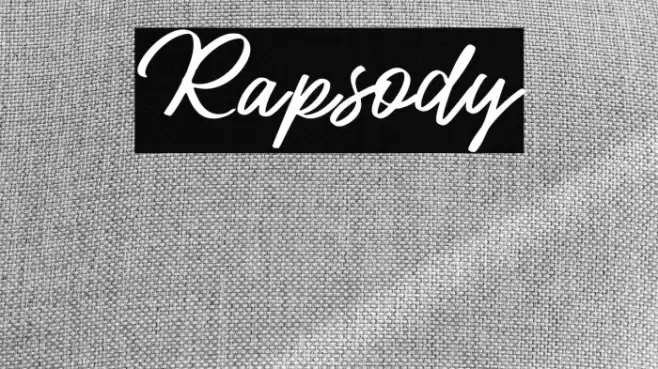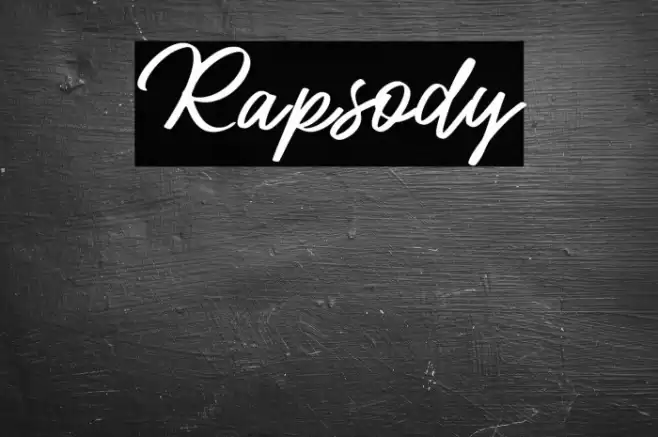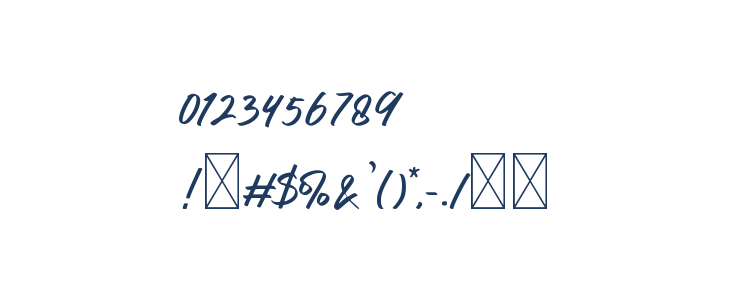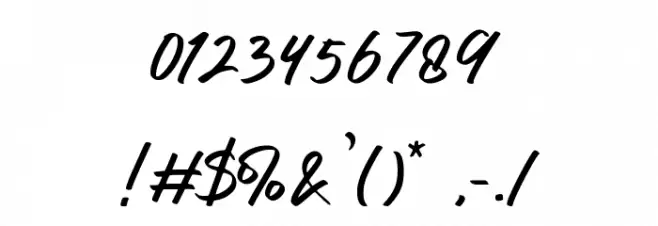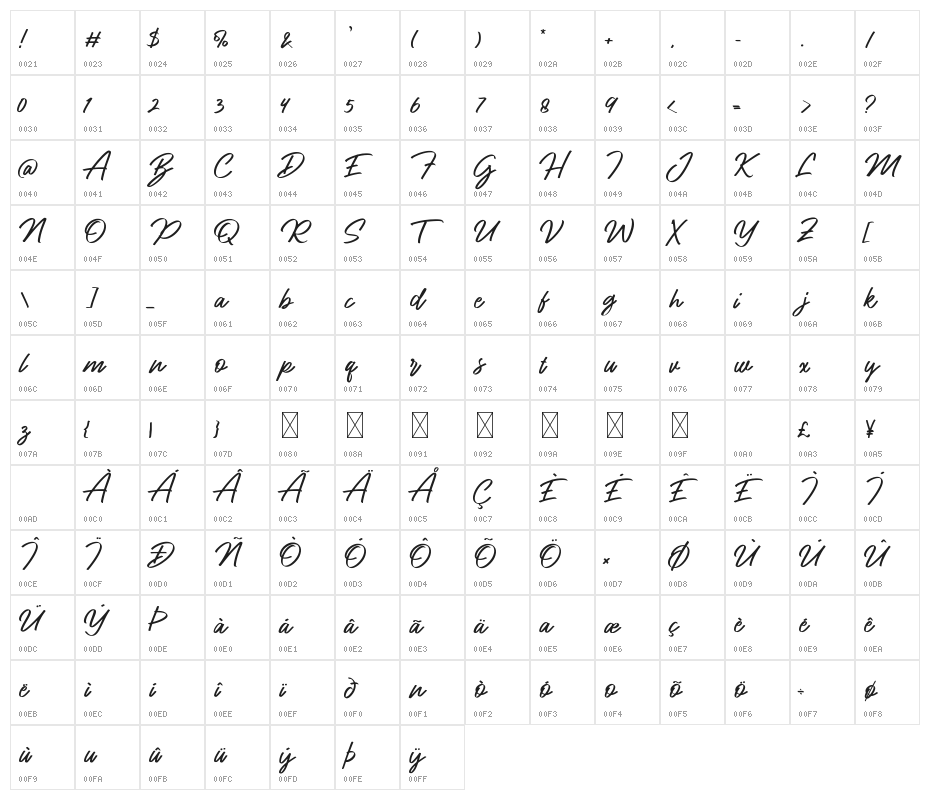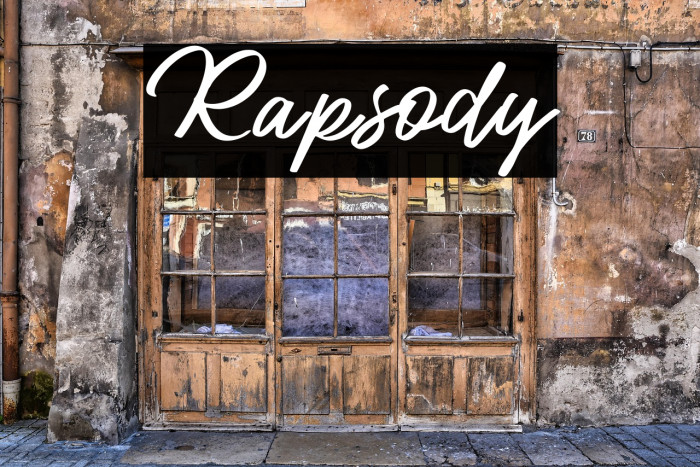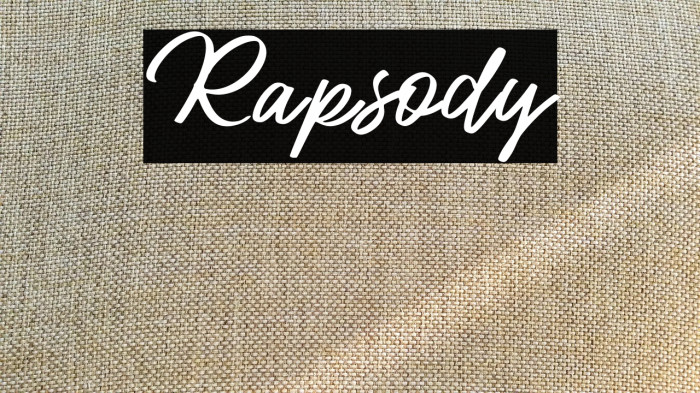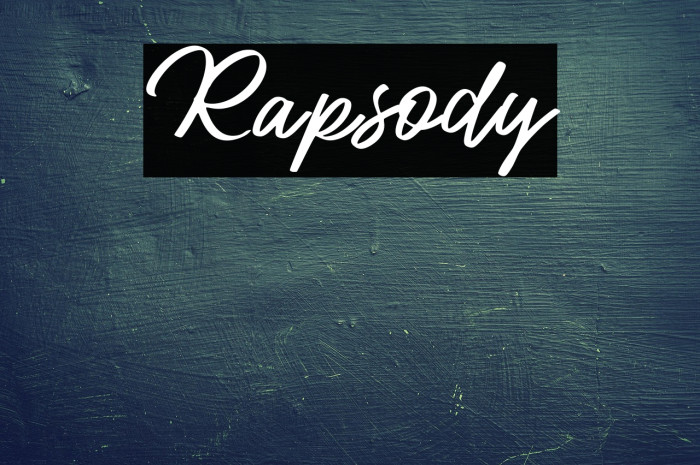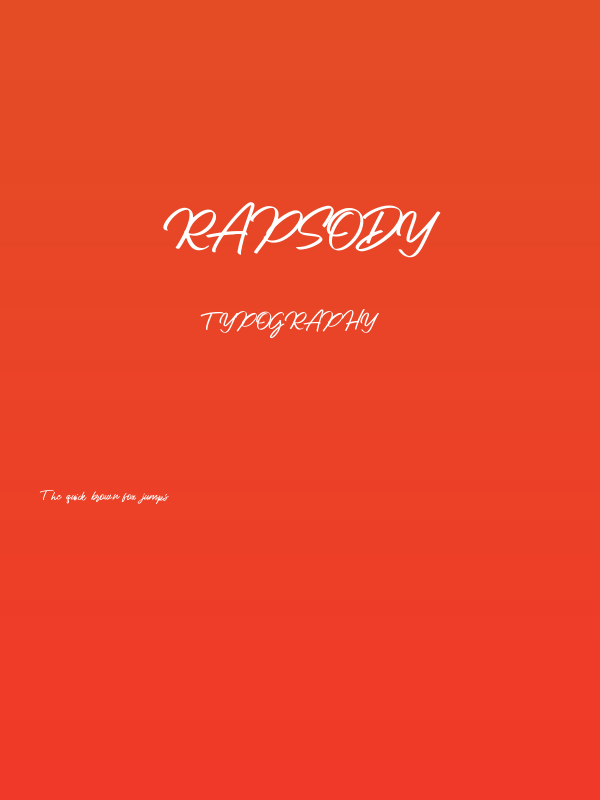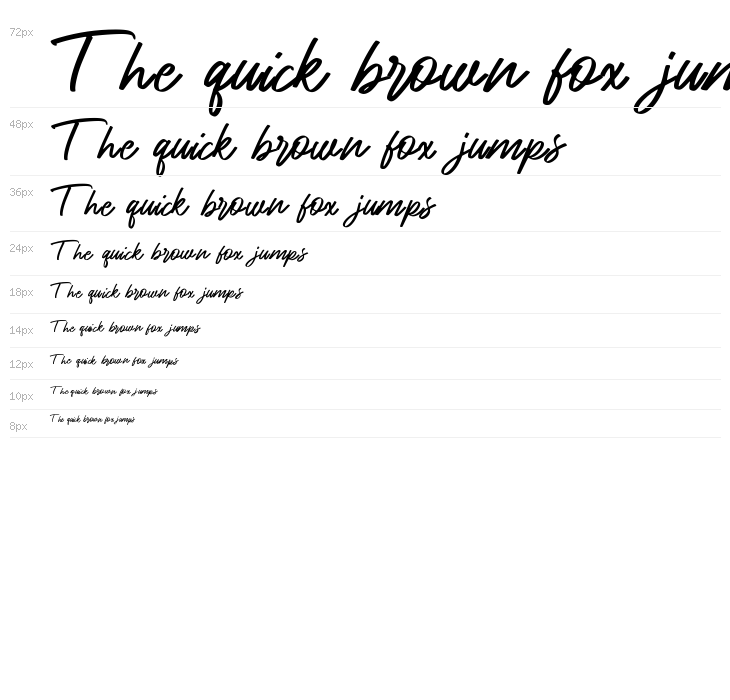
Rapsody Font
Rapsody Description
This font features a flowing, cursive style with a modern twist. The letters are connected, creating a seamless and elegant look. The uppercase characters are bold and expressive, while the lowercase letters maintain a consistent flow, enhancing readability. The numbers and special characters are designed to match the overall aesthetic, with smooth curves and a balanced structure. This font exudes a sense of sophistication and creativity, making it suitable for various design projects.
A modern, cursive font with flowing, connected letters from Regular fonts.
- Proposed Projects: Ideal for wedding invitations, branding, logo design, and elegant packaging.
- Use Case: Logos, Invitations, Branding